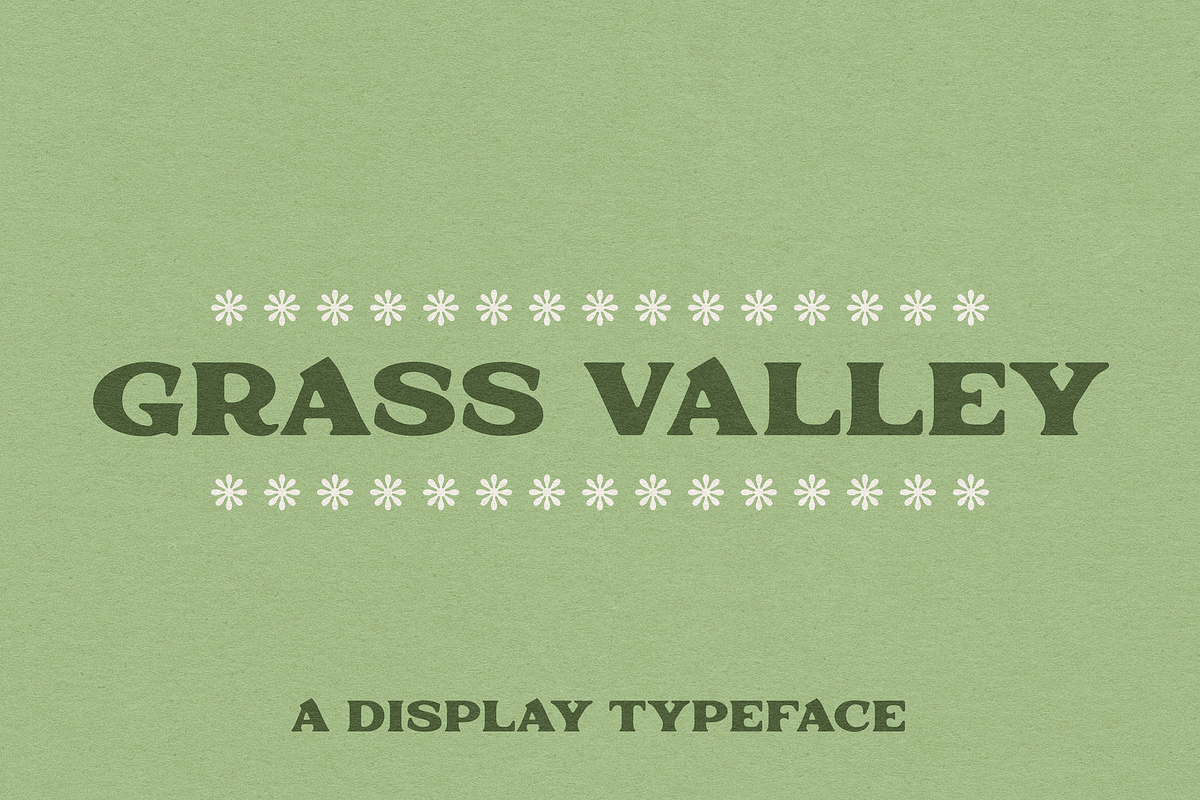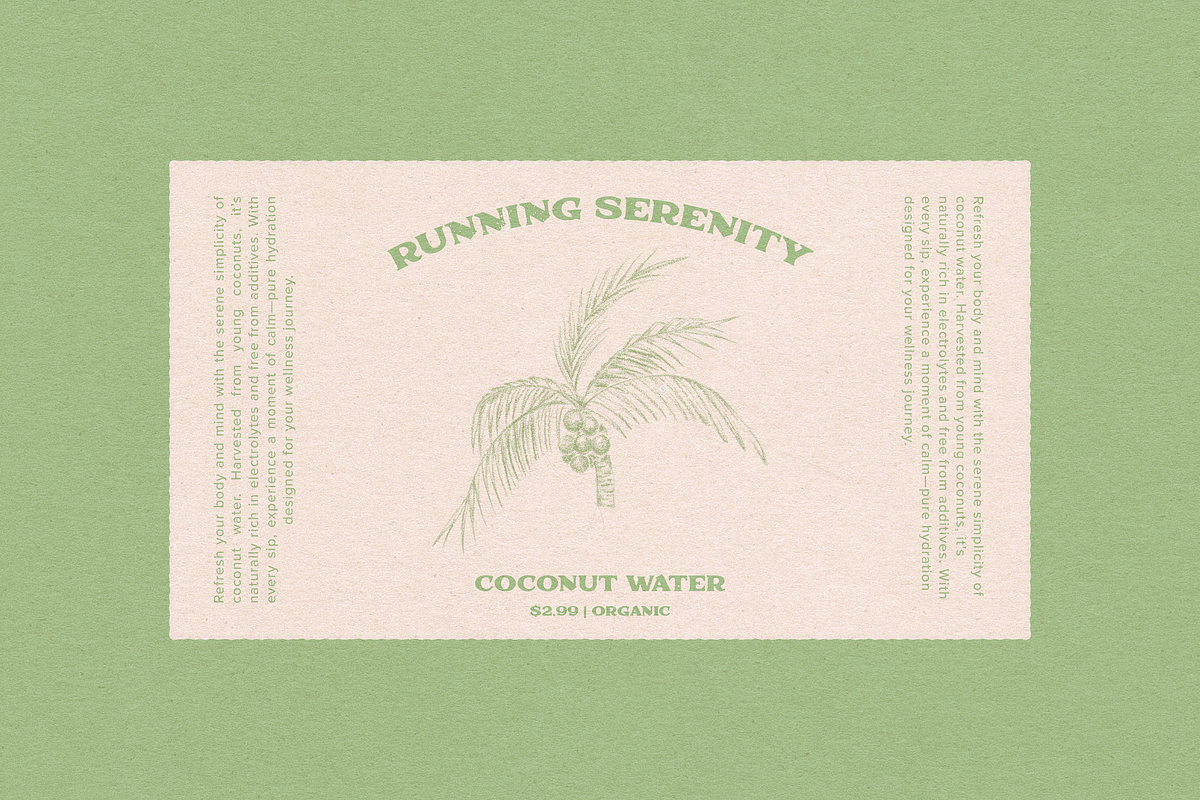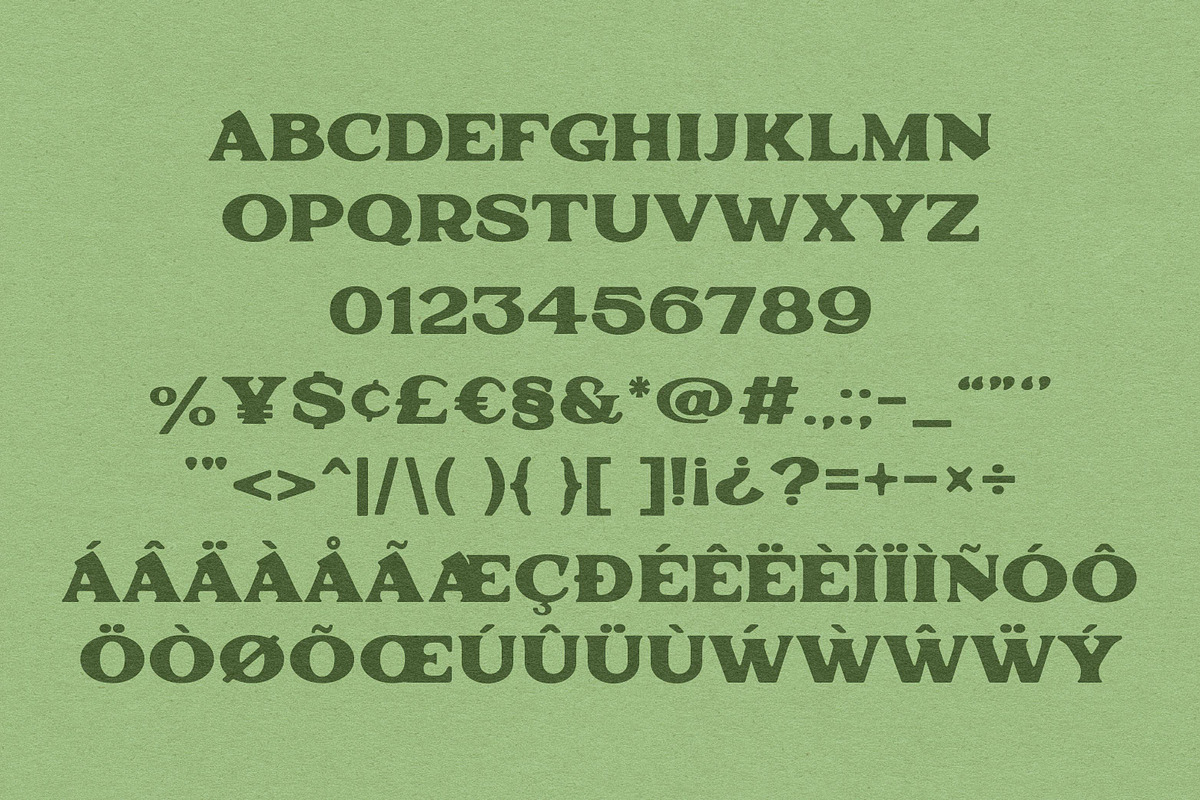
Grass Valley | Display Serif Font
'Grass Valley' is a bold display typeface. Designed to be a bit more interesting than your standard serif, this chunky font includes some stand-out characters with extra bold serifs and angled edges. Perfect for a variety of projects - I love using this one for branding or in greeting card designs.
- capitals A-Z, including multiple language support
- numbers 0-9
- a range of punctuation and special characters